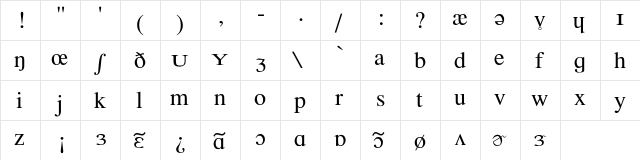
Phonetic-Alphabet
Design Context for Phonetic-Alphabet Typeface
Phonetic-Alphabet is a composed and adaptable typeface that performs quietly and consistently across a wide range of design contexts.